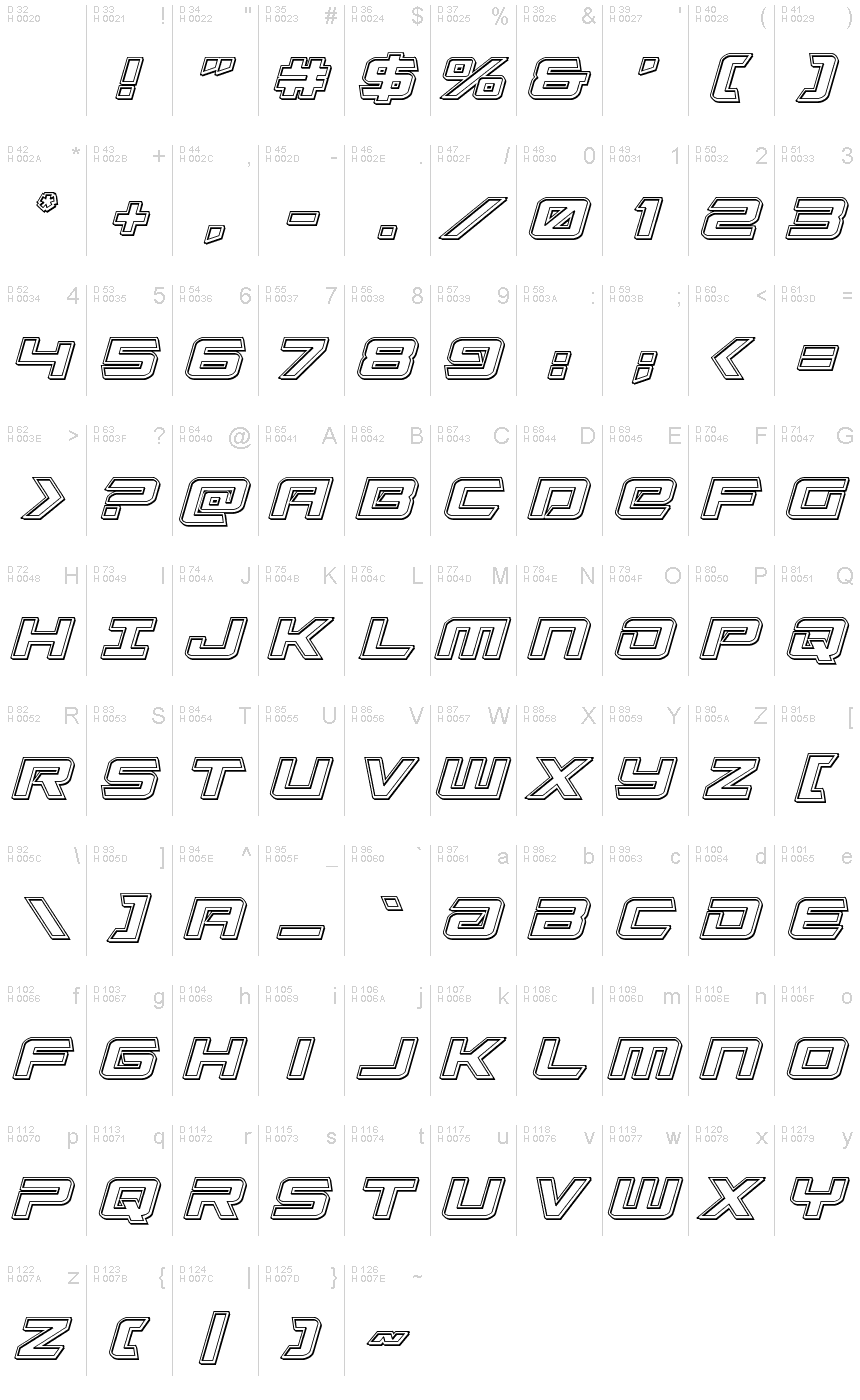
Captain Falcon Engraved Italic
Captain Falcon Engraved Italic is a captivating display font from the renowned Captain Falcon family by Iconian Fonts. With its futuristic style and semi-bold weight, this font is perfect for eye-catching designs that demand attention. Its expanded width adds a touch of uniqueness to any project, making it suitable for diverse creations such as sci-fi book covers, gaming logos, technology-themed websites, or even futuristic movie posters. Let Captain Falcon Engraved Italic take your designs to new heights with its bold and edgy aesthetic.